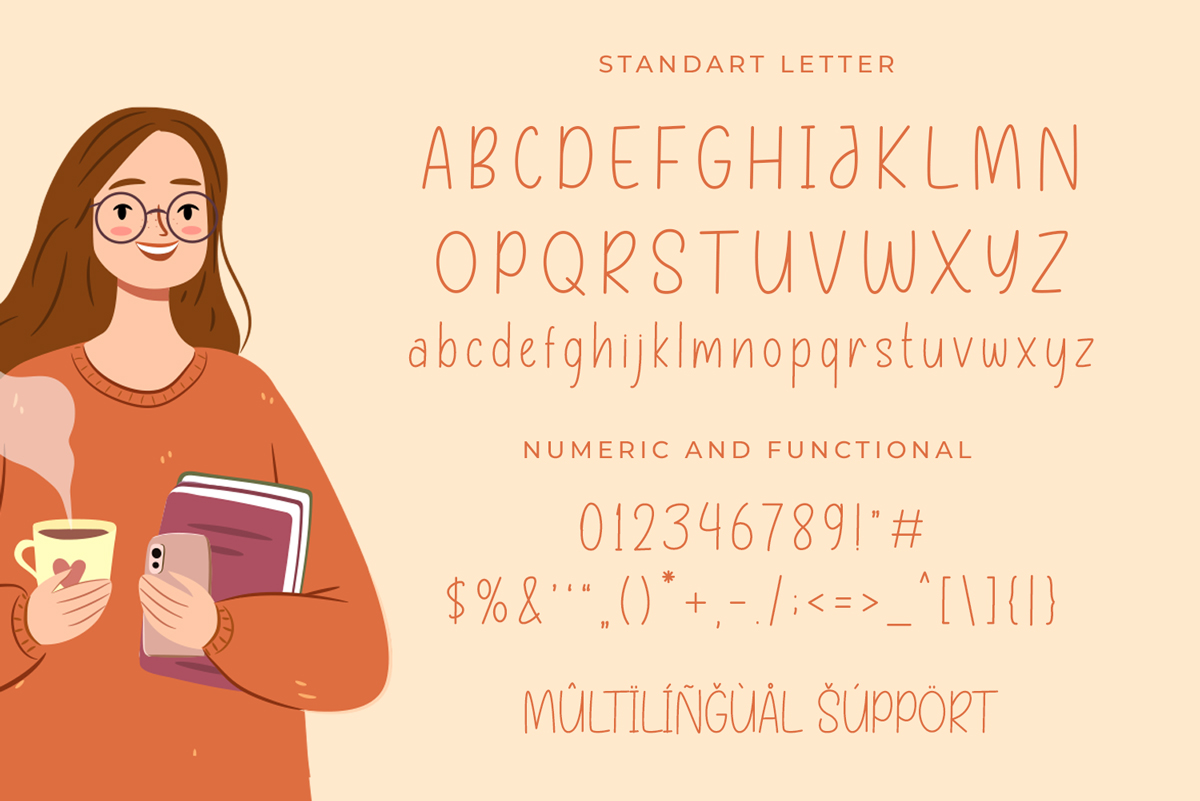
Brenda Home A Tall Handwritten font
Brenda home look tall, modern and joyful. This font suitableĀ  for logos, packaging designs, posters, business card, cover, broadcast, quotes, books, etc. Let’s we go, to make you business go to next level with Brenda home.